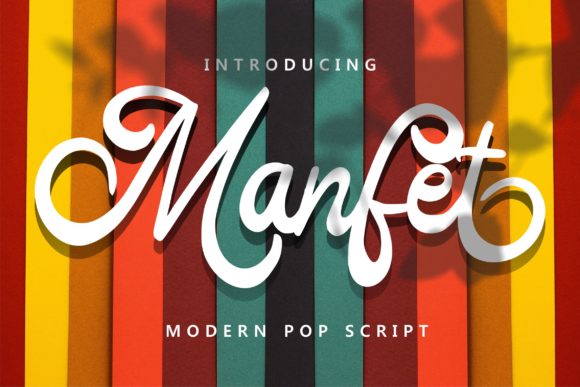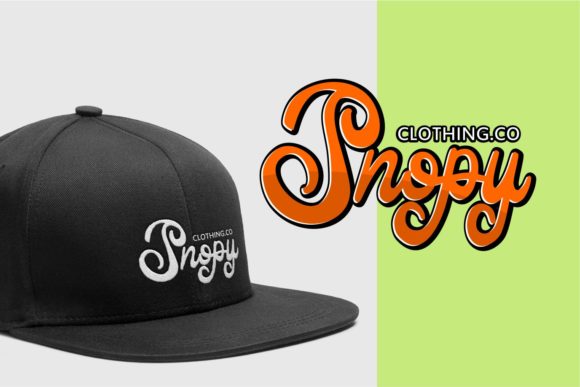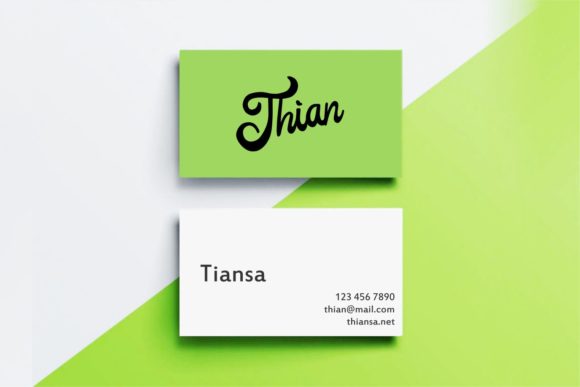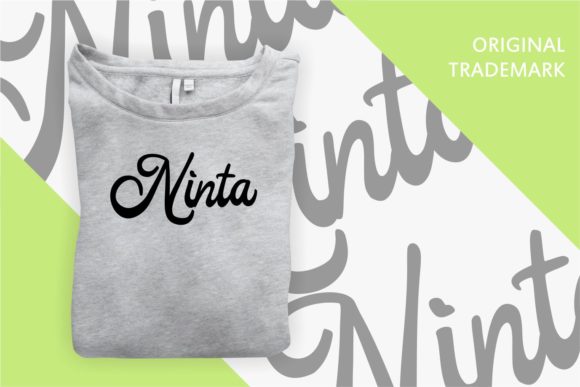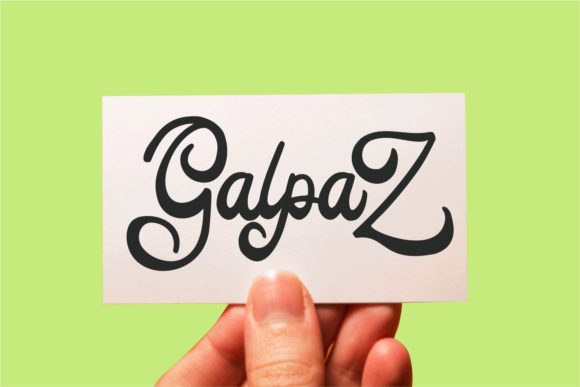
Manfet Font
About Manfet Font
Manfet is a fun and beautiful script with playful swashes. It features a subtle retro vibe, which is perfect for making you design stand out!